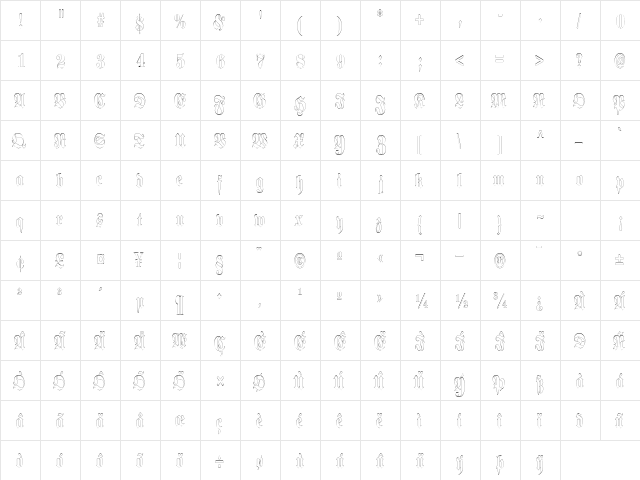
BerlinerOutlineCondensed Regular
Design Context for BerlinerOutlineCondensed Typeface
BerlinerOutlineCondensed is built around its visual character rather than neutral utility — its distinctive forms are designed to make an impression at display sizes.
Font Pairing: Pair with a clean neutral sans-serif for body copy to let BerlinerOutlineCondensed's character lead without overwhelming the composition.
Pro Tip: Treat BerlinerOutlineCondensed as the centrepiece of your typographic hierarchy. One strong heading set in a decorative face can carry an entire layout.